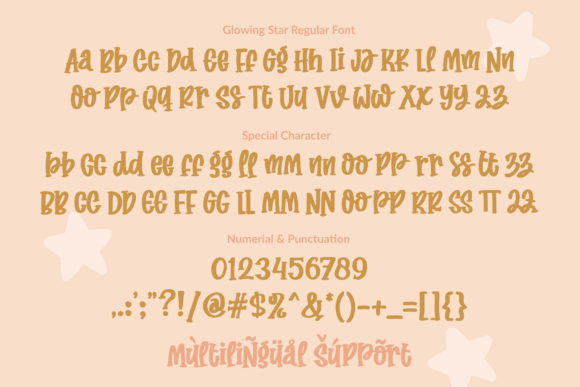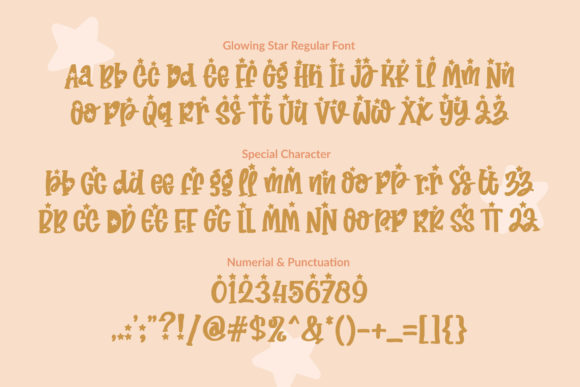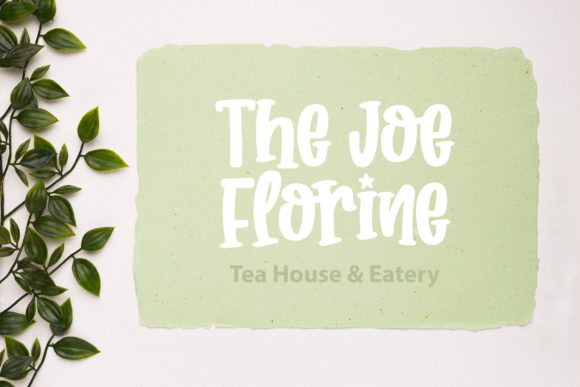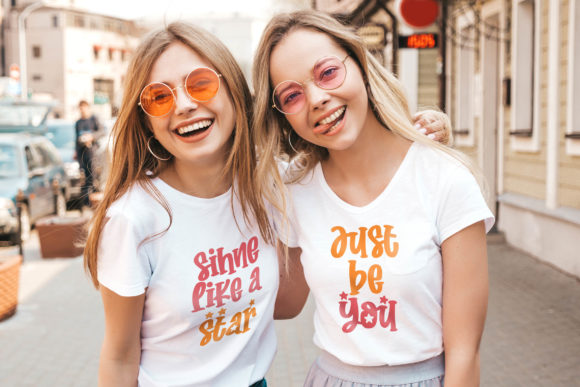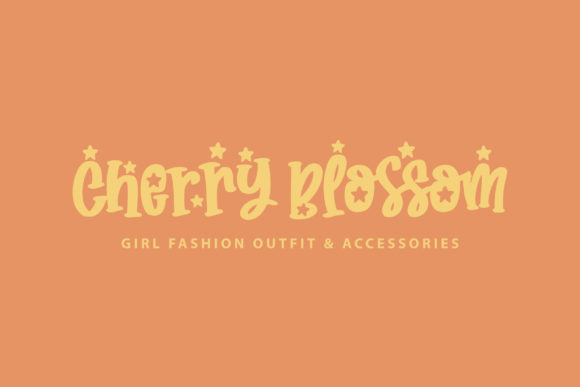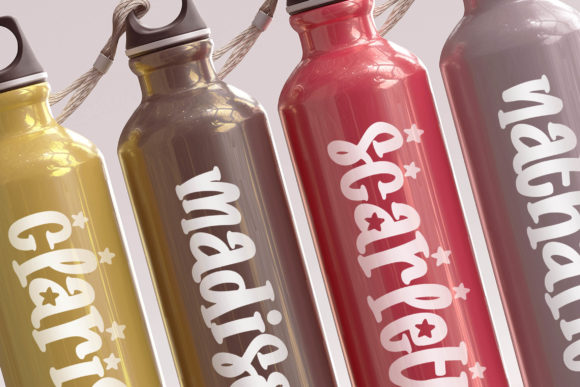
The Glowing Star Font: A Cute and Quirky Companion for Your Design Projects
I still remember the time I was working on a project for a children’s birthday party, and I just couldn’t find the right font to match the playful vibe of the design. The client wanted something fun, friendly, and energetic, but everything I tried seemed either too boring or too over-the-top. That’s when I stumbled upon the Glowing Star font, and it instantly brightened up my design (and my day!). In this article, I’ll share my experience with this lovely font, its features, and how to make the most of it in your projects.
- ✨ Playful and friendly style: Glowing Star has a unique, handwritten charm that makes it perfect for projects that need a personal touch.
- ✅ Highly versatile: This font can be used for a wide range of designs, from kids’ party invites to social media graphics, and even branding materials.
- 💫 Easy to read: Despite its playful nature, Glowing Star is surprisingly legible, even at smaller font sizes.
- ⚠️ Limited formal applications: Due to its playful nature, Glowing Star might not be the best fit for very formal or professional projects, such as corporate reports or academic papers.
- 🤔 Some letters may require adjustment: Depending on the word or phrase, you might need to tweak the kerning or spacing to get the best results.
The Story Behind Glowing Star
Glowing Star was designed with the intention of creating a font that would bring a smile to people’s faces. The designer, inspired by the magic of childhood and the beauty of handwritten letters, crafted a font that would be both playful and friendly. With its unique blend of curves and lines, Glowing Star is sure to add a touch of whimsy to any design project.
| Q: Can I use Glowing Star for branding and logos? | A: Absolutely! Glowing Star’s unique personality makes it a great fit for branding and logos that need a playful touch. |
| Q: Does Glowing Star support OpenType features? | A: Yes, Glowing Star supports OpenType features, including stylistic alternates, glyphs, and more. |